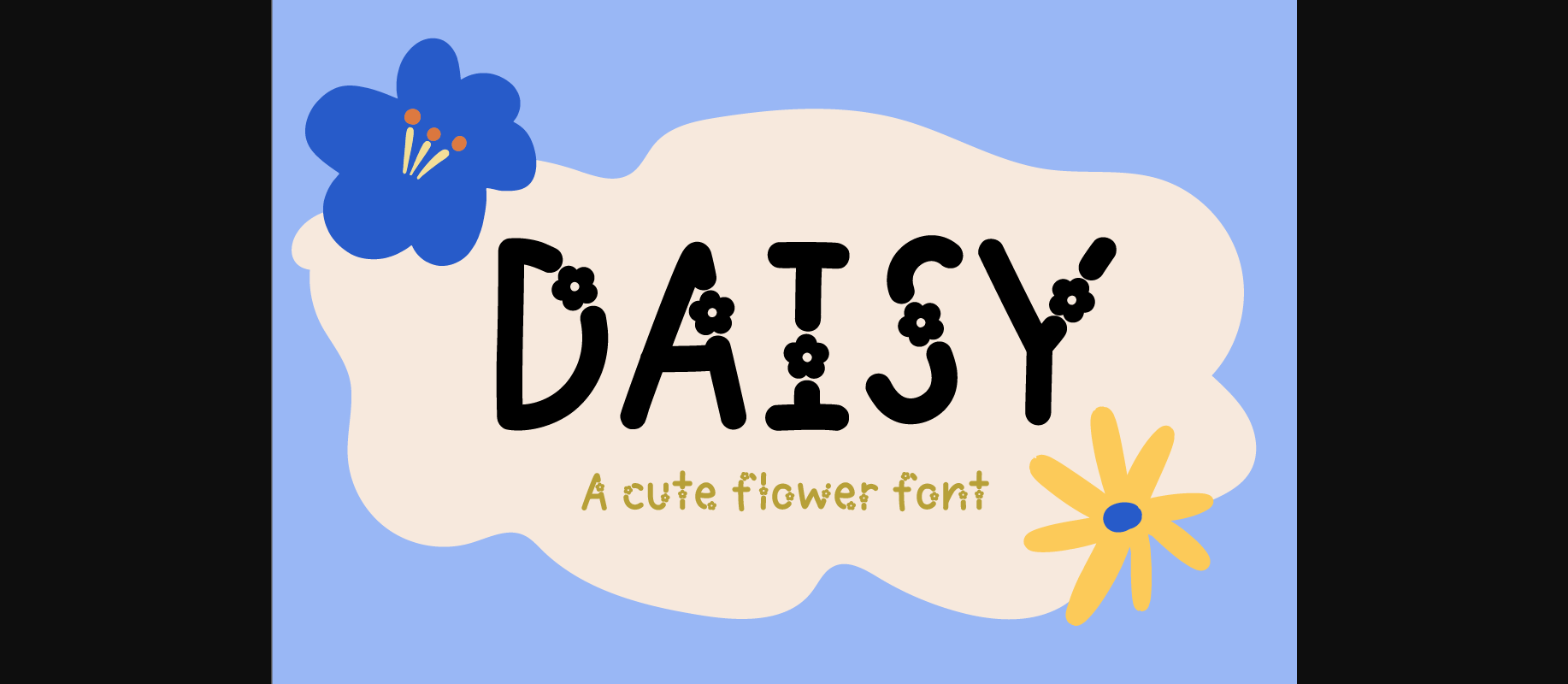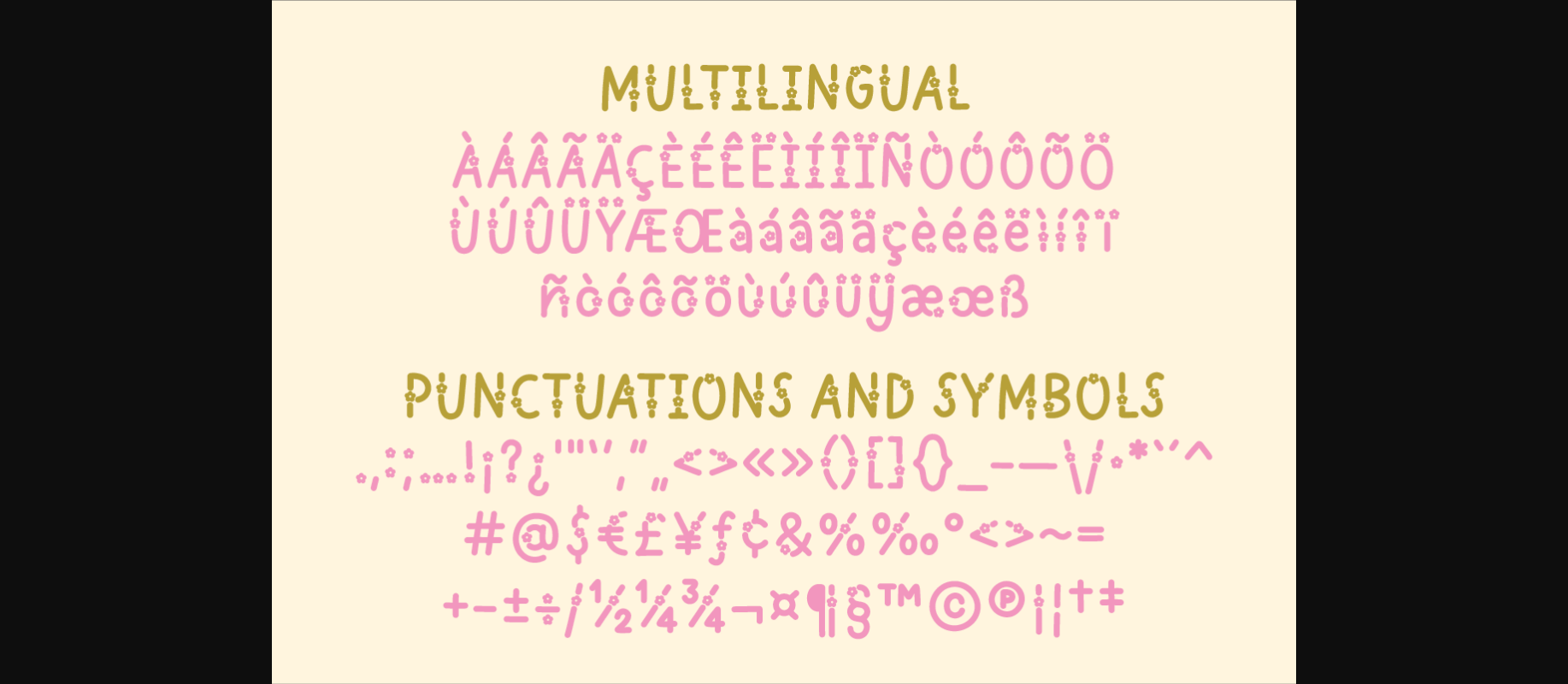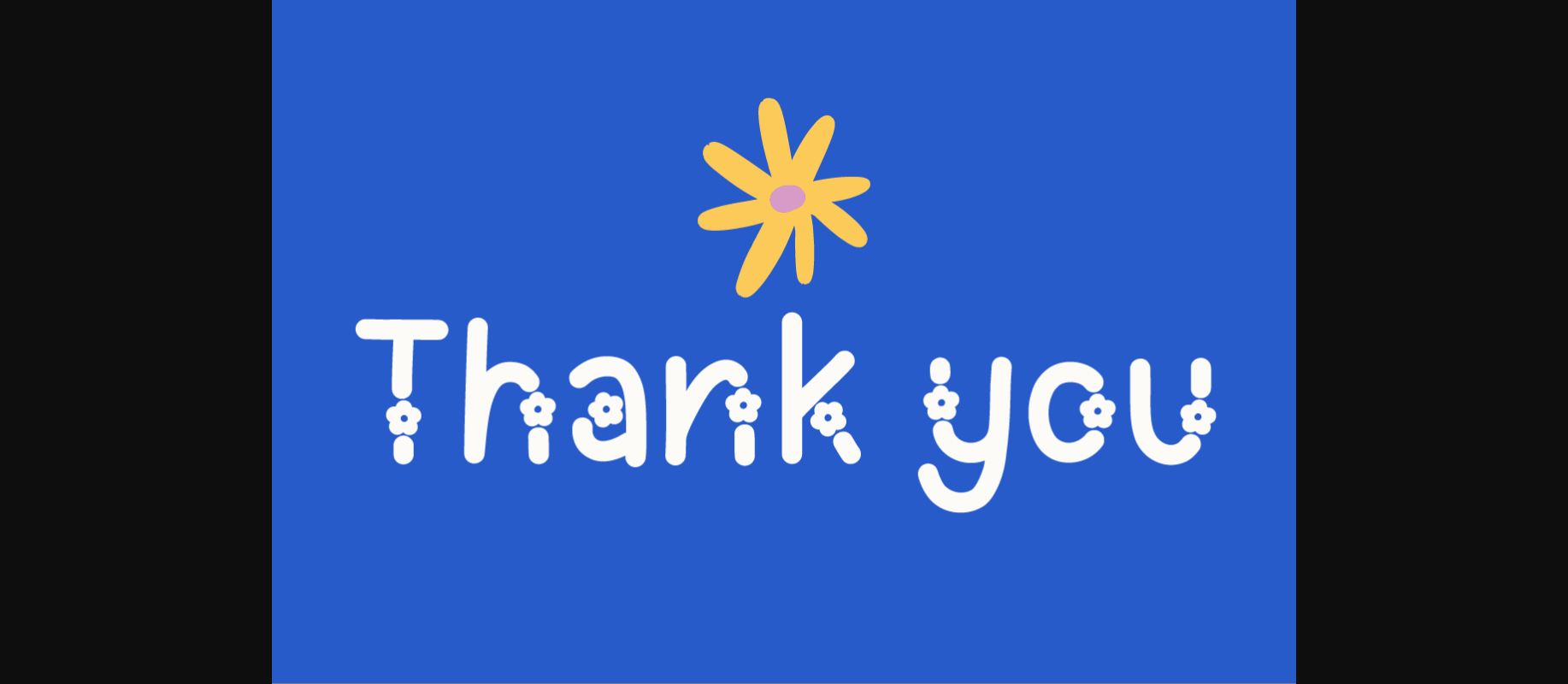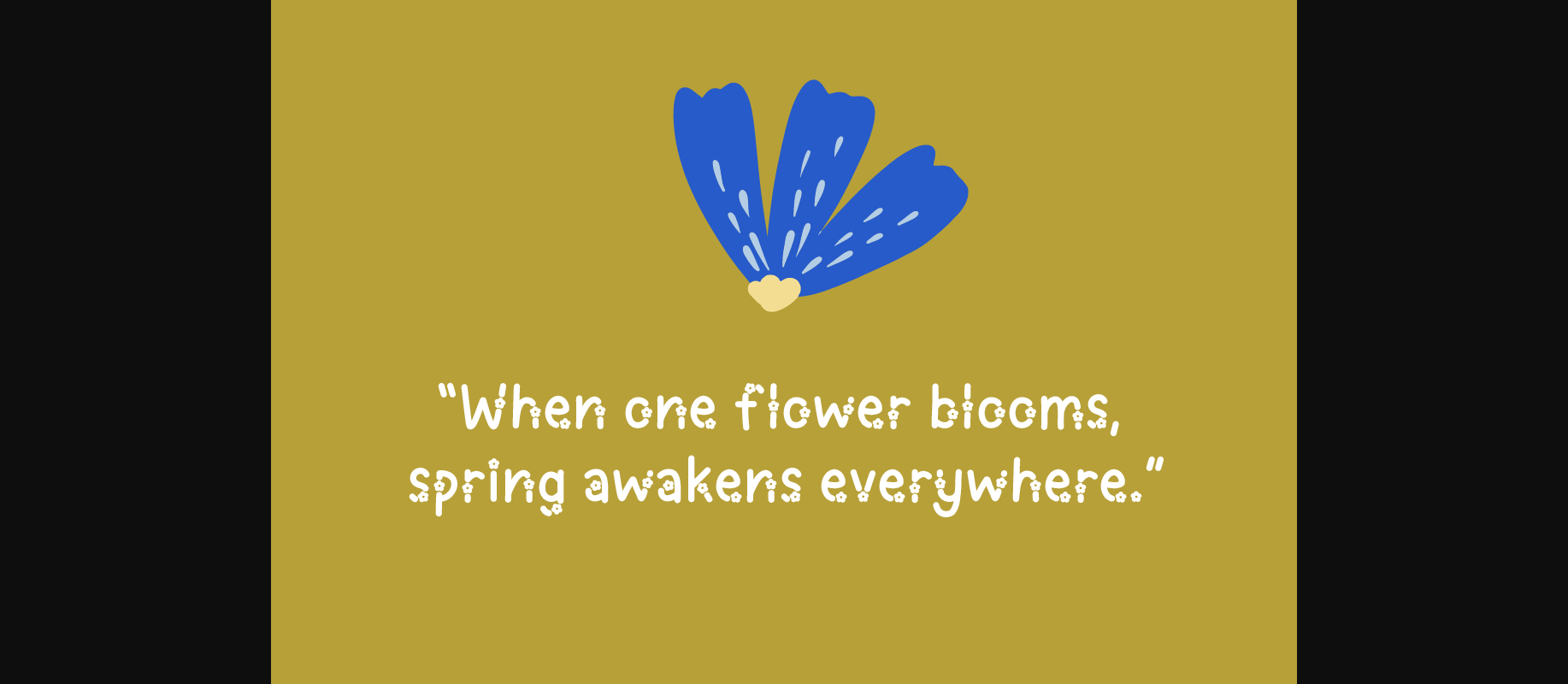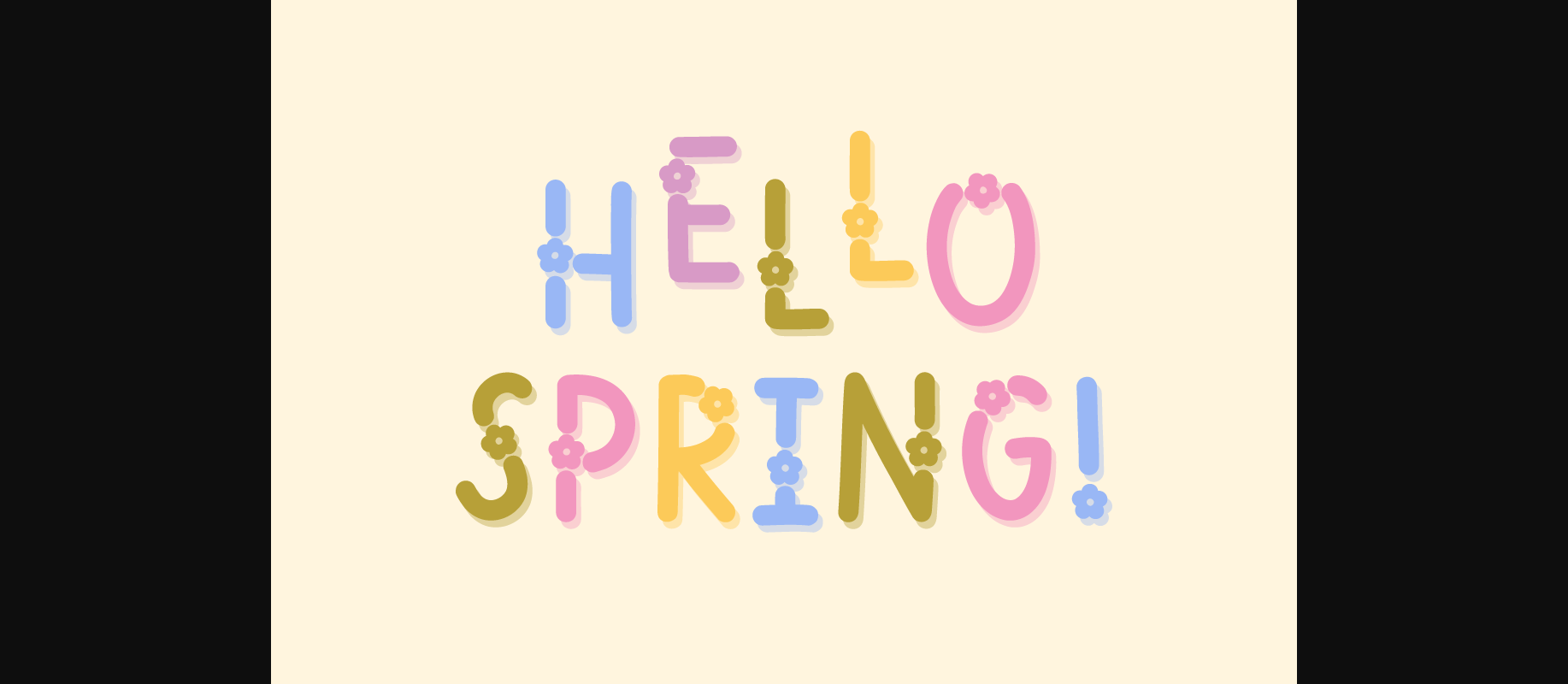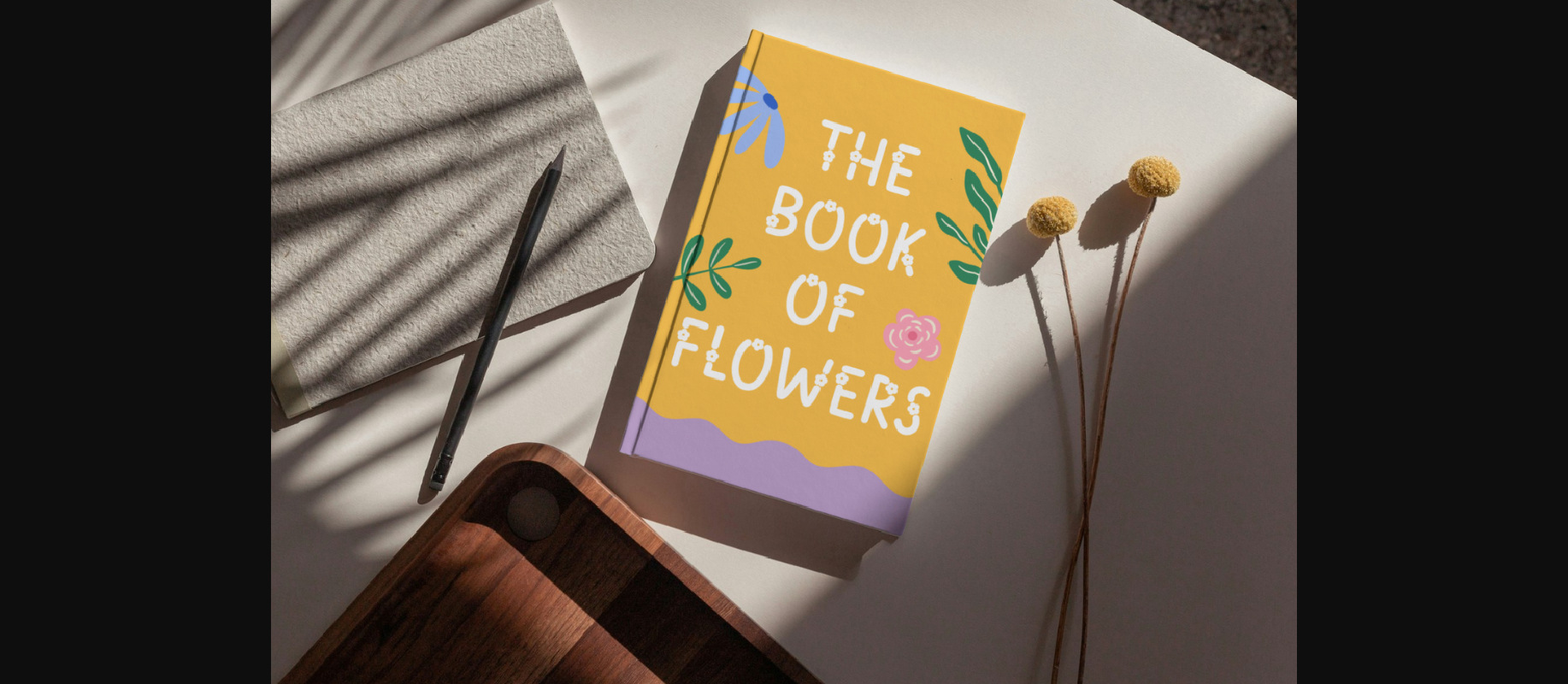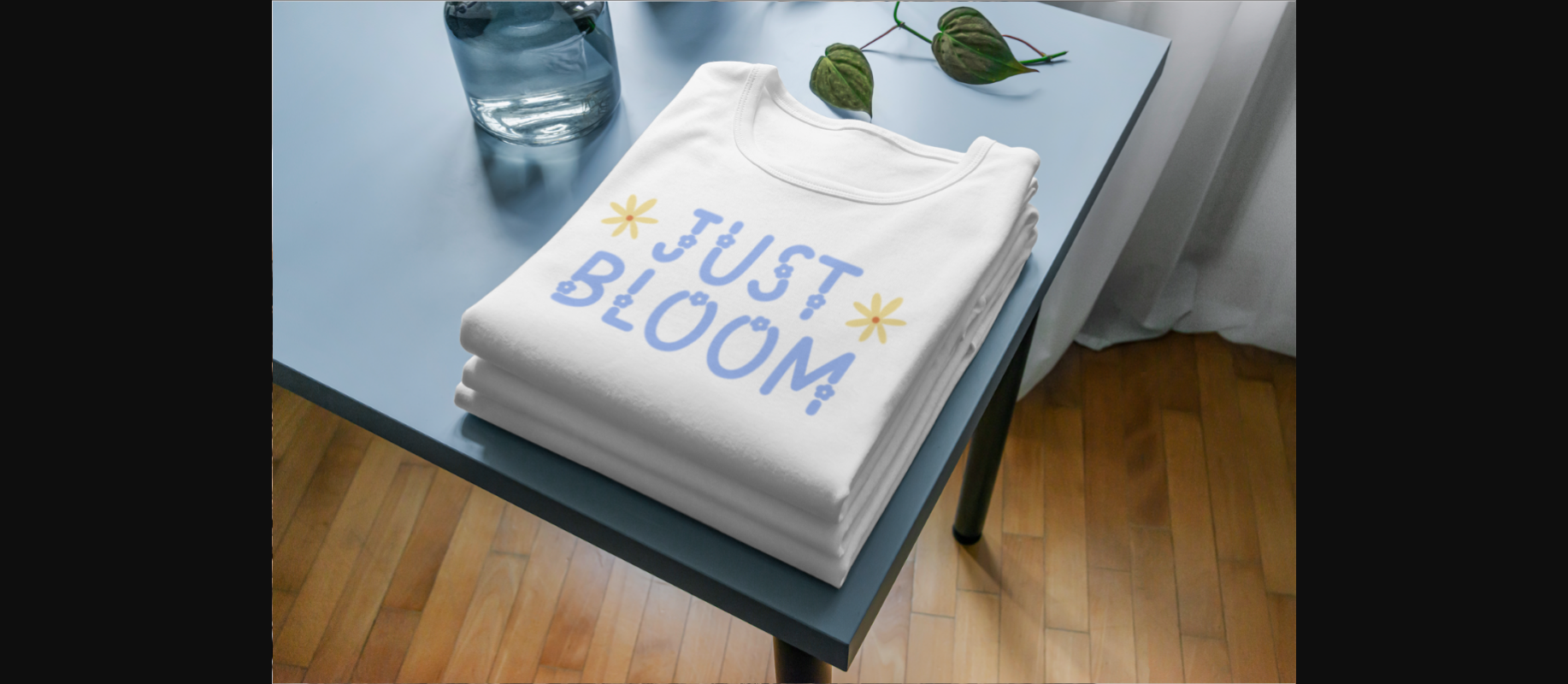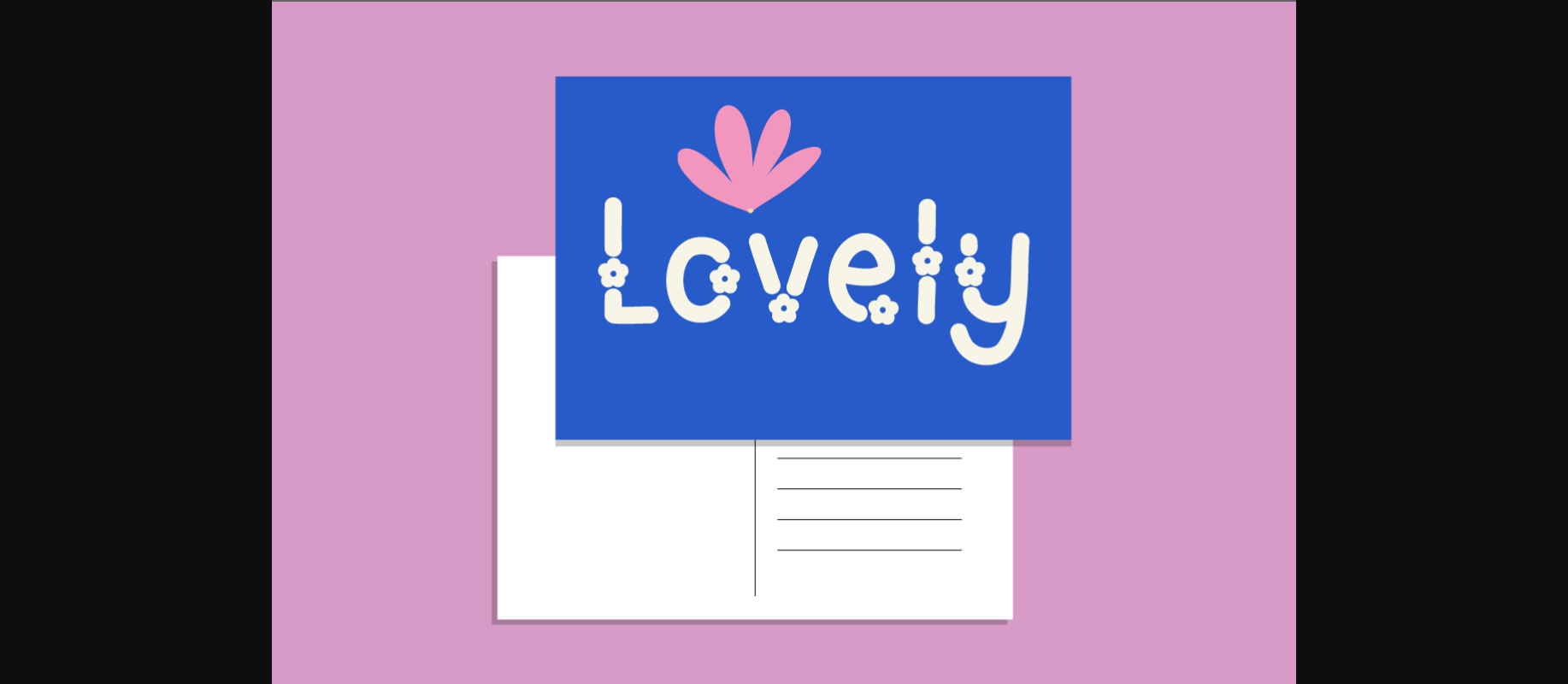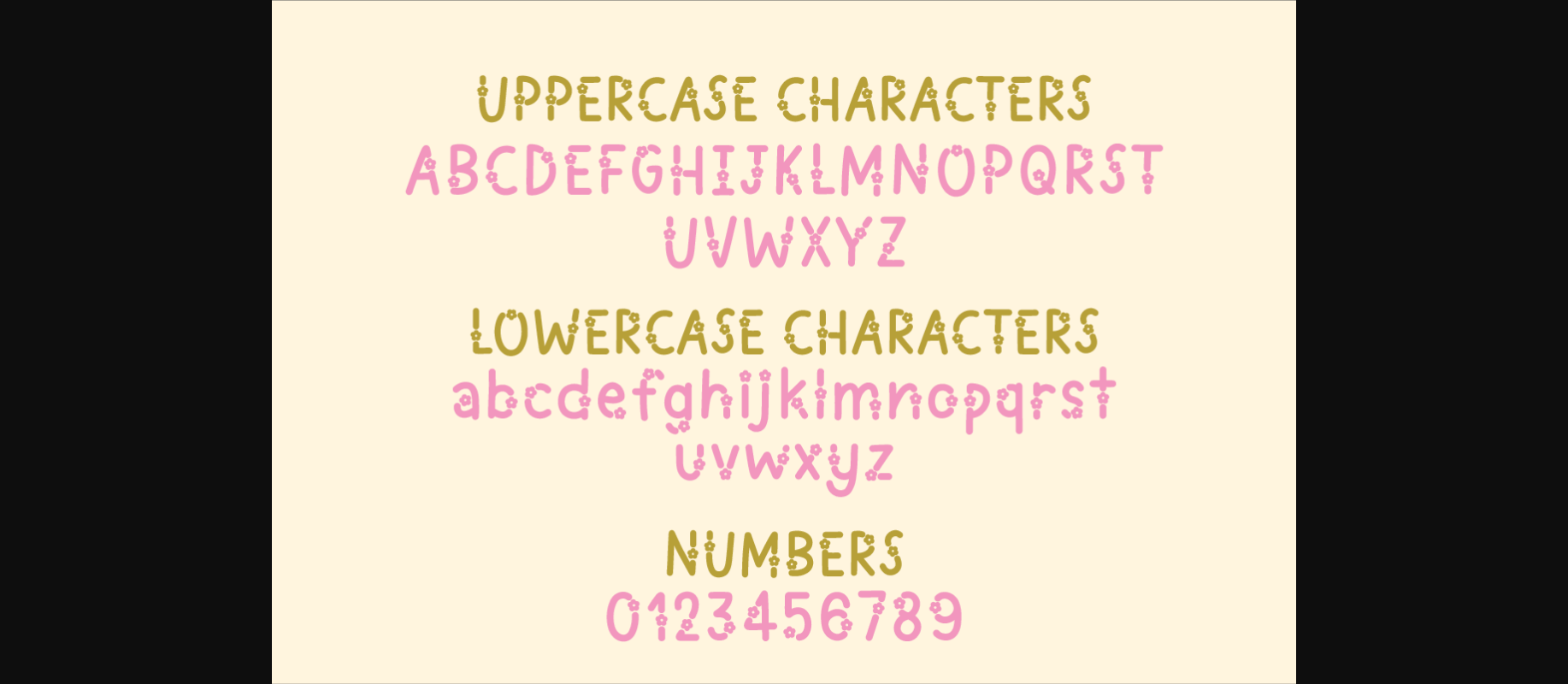
Daisy Font
About Daisy Font
Daisy is a playful decorative tiny flower font. Perfect for Spring and summer projects, shirts, Easter designs, invitation cards, mugs, stickers, playful quotes, creating posters, logos, greeting cards, packaging, decorating the illustration and so much more!